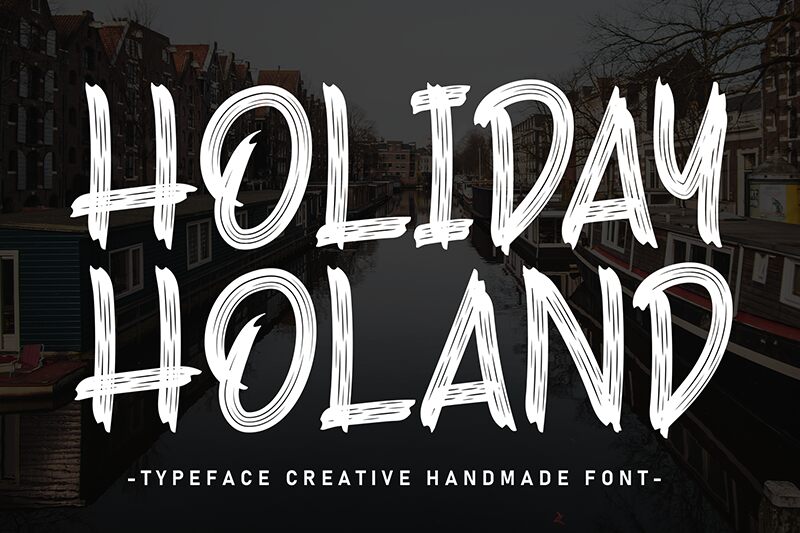
Holiday Holand
Holiday Holand font by Andi Moz is a brush display typeface with a graffiti-like appearance. This scratchy and textured font delivers expressive letters with a bold personality ideal for rebellious design projects. Its uneven shapes mix and connect in imaginative ways for an interesting visual style that draws attention to the present text.
Holiday Holand is a free brush font so incorporate it into magazine titles, book covers, social media posts, flyers, packaging, branding visuals, posters, and event invitations. Its unusual design style needs creative use of imagination to integrate into trendy graphic platforms which educators can also take advantage of when creating educational material.